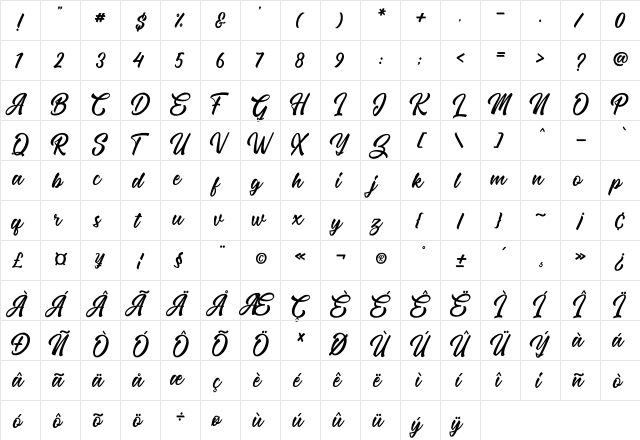
The Micrander Regular
Design Context for The Micrander Typeface
The Micrander is a composed and adaptable typeface that performs quietly and consistently across a wide range of design contexts.